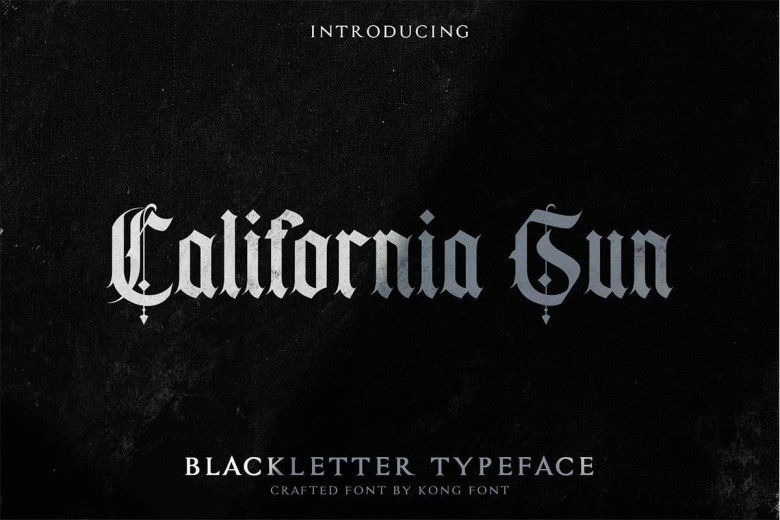
California Sun Blackletter Typeface
California Sun Blackletter Typeface is a handmade Modern Victorian font, which is combining modern and classic typography with some awesome alternates. It works well with normal size text, but it works even better for large displays, short words, or even just to incorporate a few or single characters in a design.